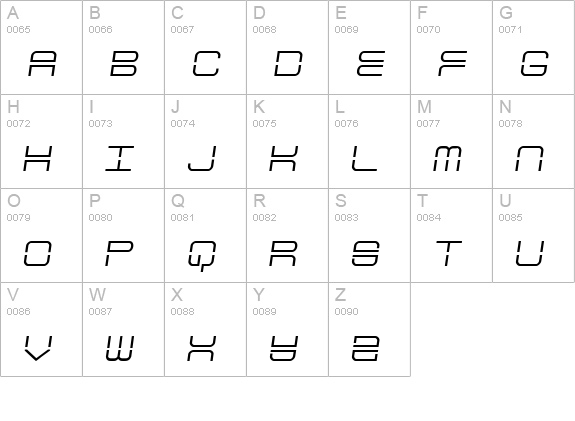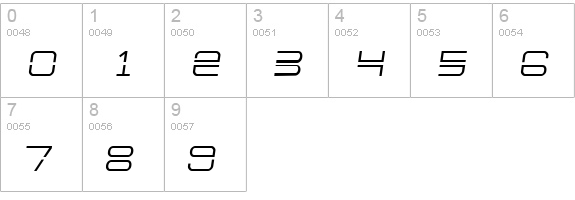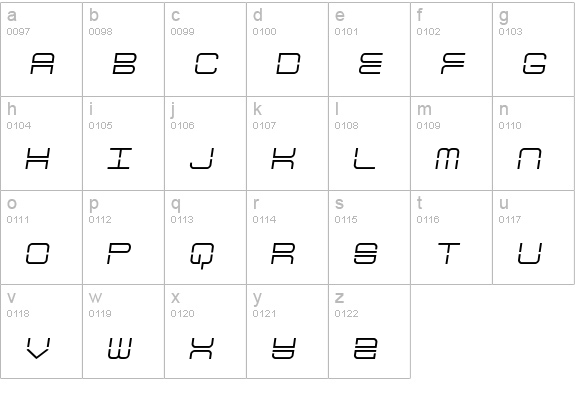
Escapade Font Details
Escapade font is a whimsical and playful typeface that is sure to add a touch of creativity to your designs. With its quirky character and unique charm, Escapade is perfect for projects that require a fun and lighthearted feel. This font is versatile and can be used for a variety of purposes, from branding to social media graphics to invitations. The best part about Escapade font is that it is available for free download at FontsMarket.com. This means that you can easily access this delightful font and start using it in your projects right away. Don't miss out on the opportunity to add a touch of whimsy to your designs with Escapade font - download it for free today!